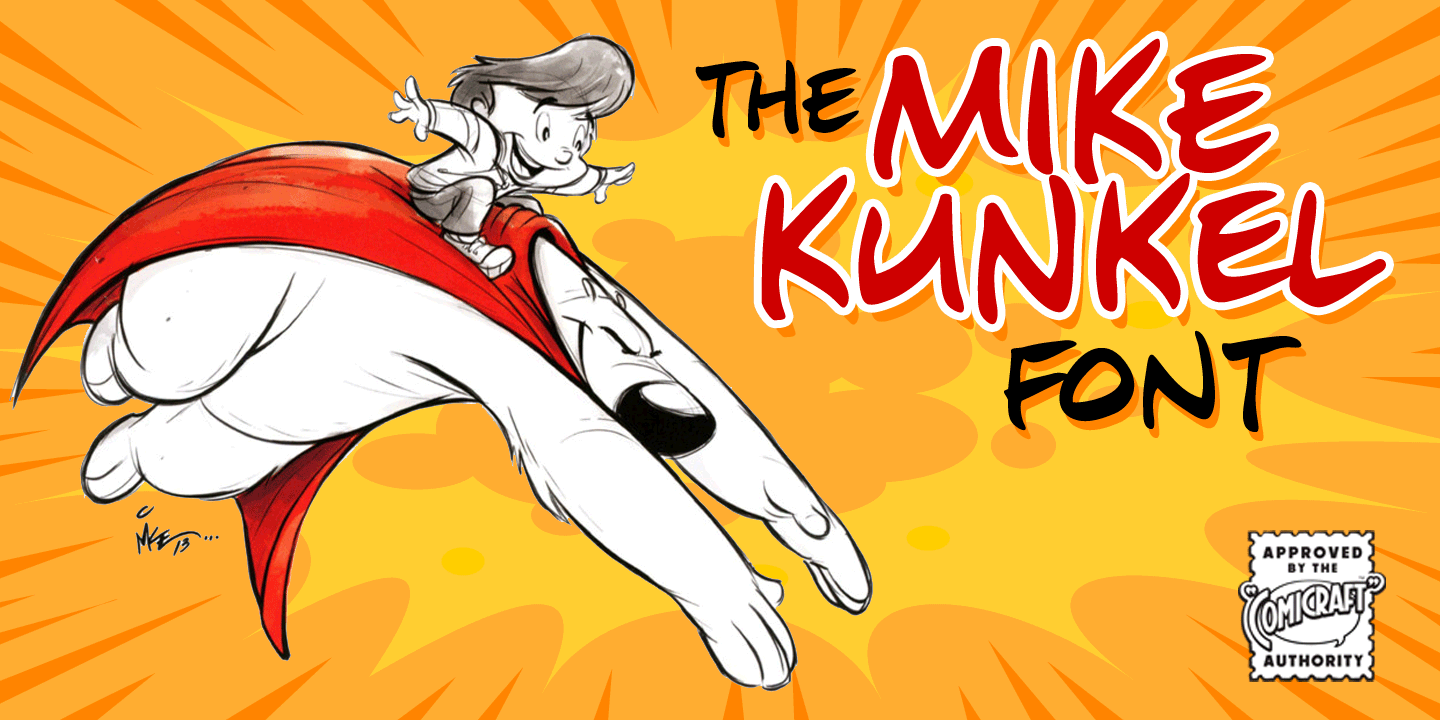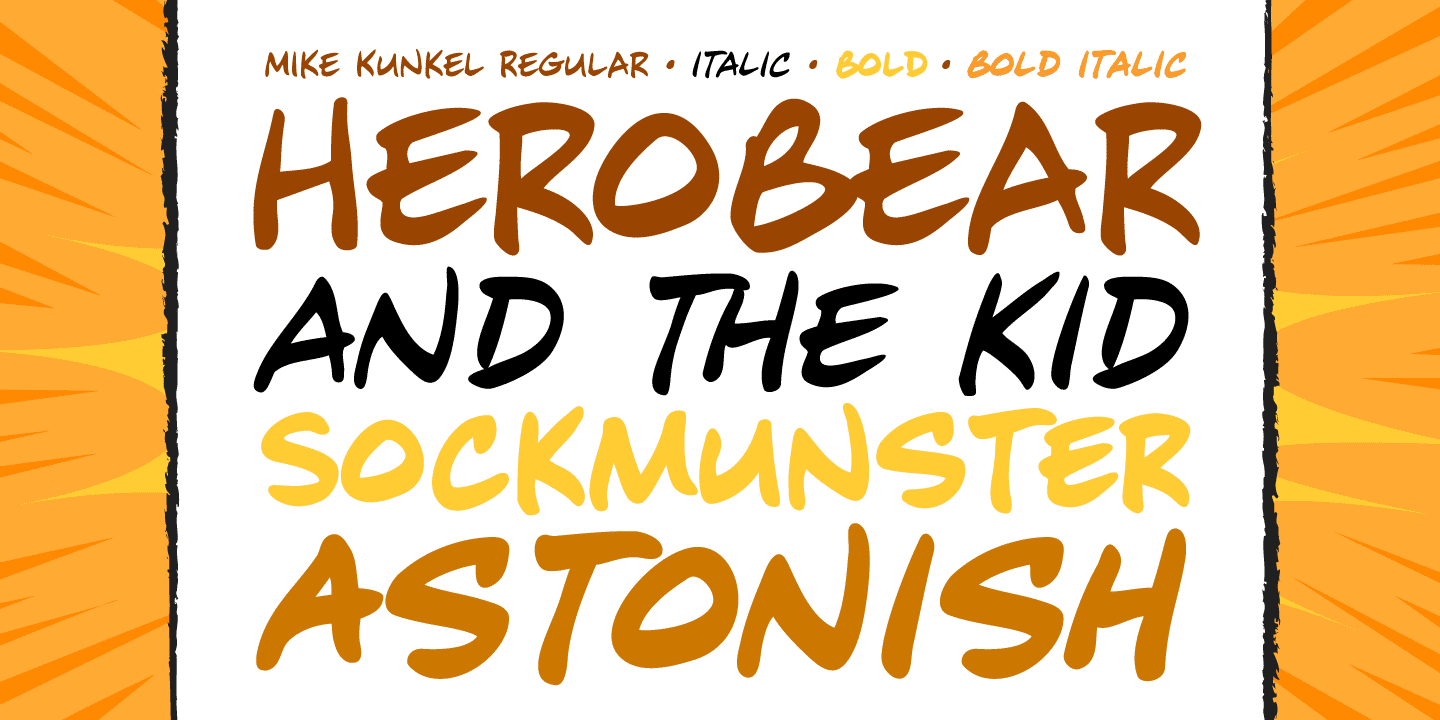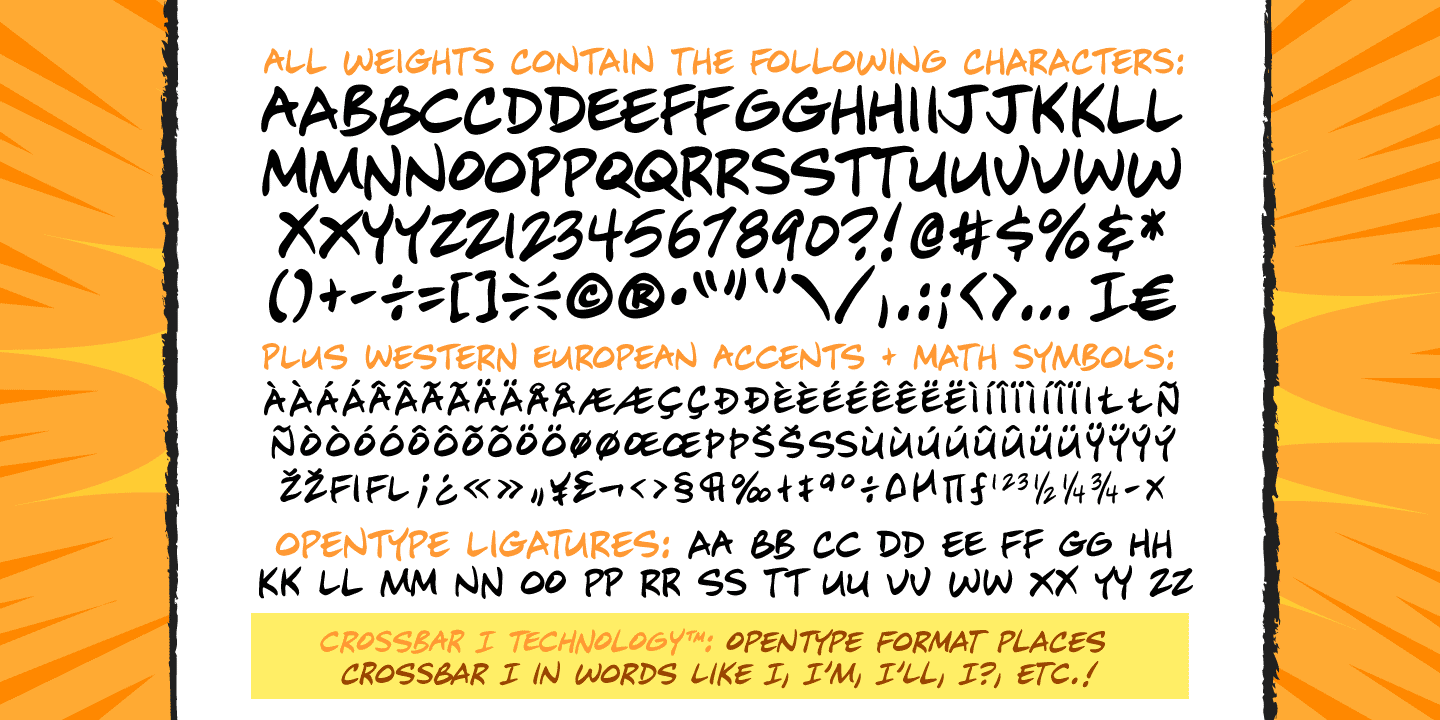
Mike Kunkel
Font Family by Comicraft Fonts
Yes it's true, from time to time those awfully nice chaps at Comicraft have been known to create fonts for artists simply because We Love Their Work. Affable HEROBEAR AND THE KID kreator, Mike "He's just like your Favorite Uncle" Kunkel was lettering his beautiful children's comic strip with a font used by many, many other comic strip creators. John "JG" Roshell put a stop to all that and created a font based on Mike's own unique hand lettering style and now we make it available to you so that you can bring a little bit of Mike's Magick to your own warm and fuzzy work... because the Mike Kunkel font will help you Remember your childhood... pass it on.